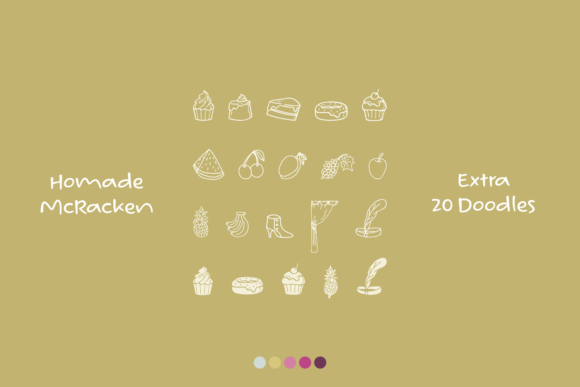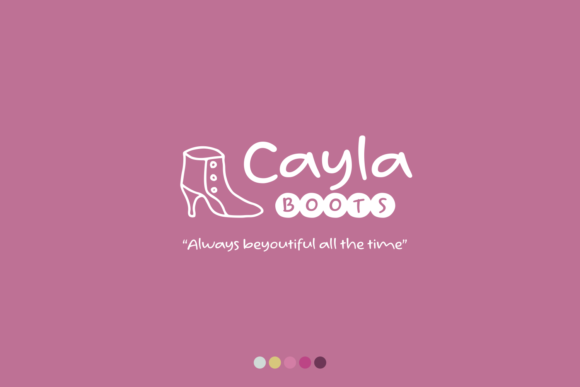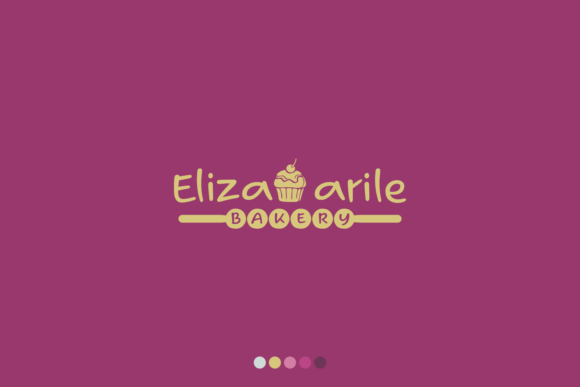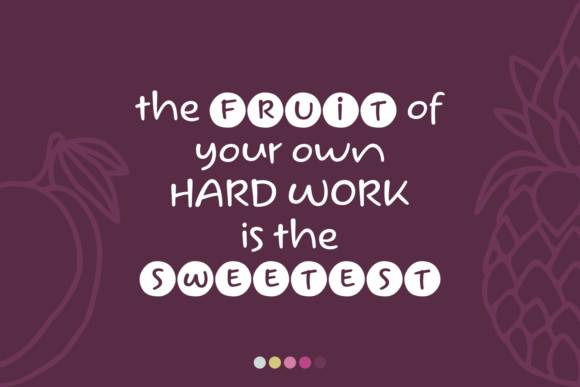
Homade McRacken Font
About Homade McRacken Font
Homade McRacken is a delicious type that you just want to put your teeth in.
It’s fun and handwritten, and has a very playful look and feel. It comes with 20 handwritten doodles, added inside the font as extras.